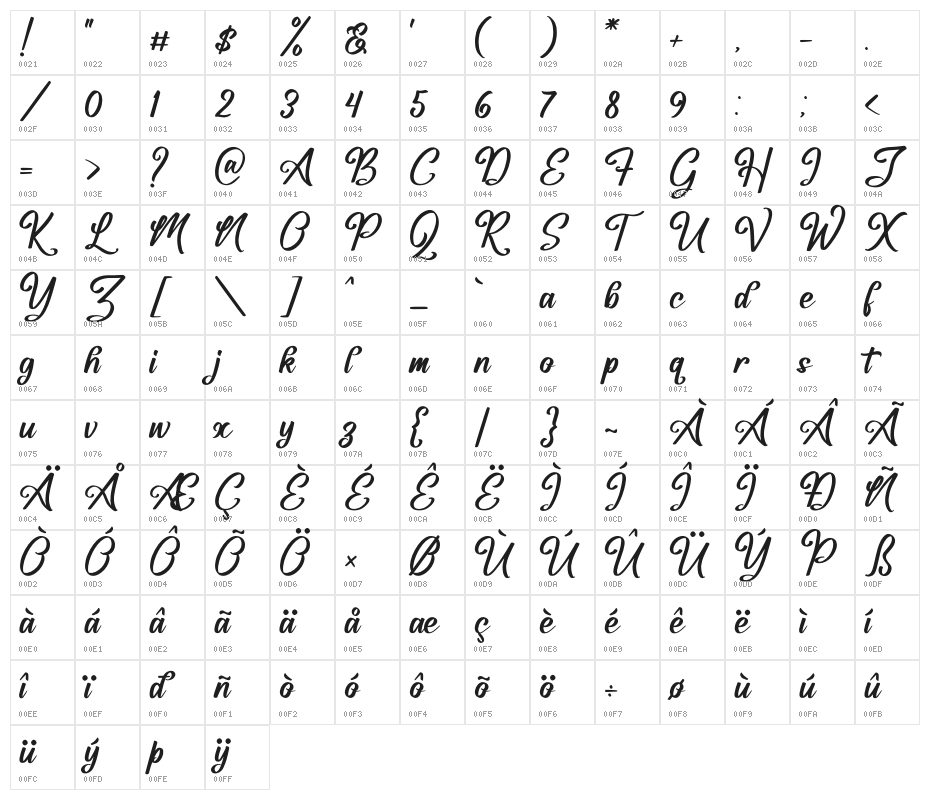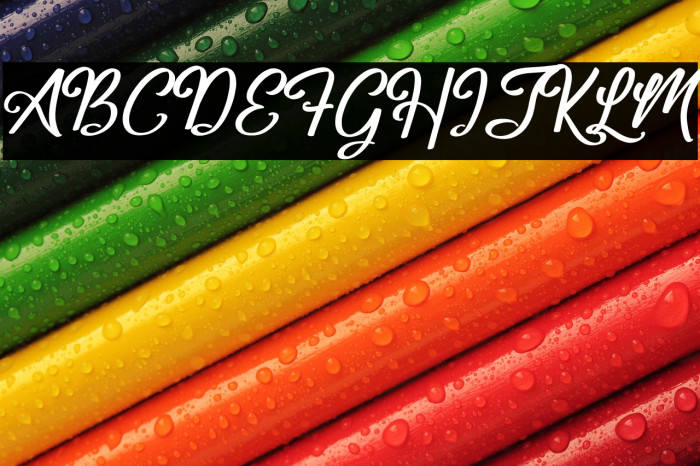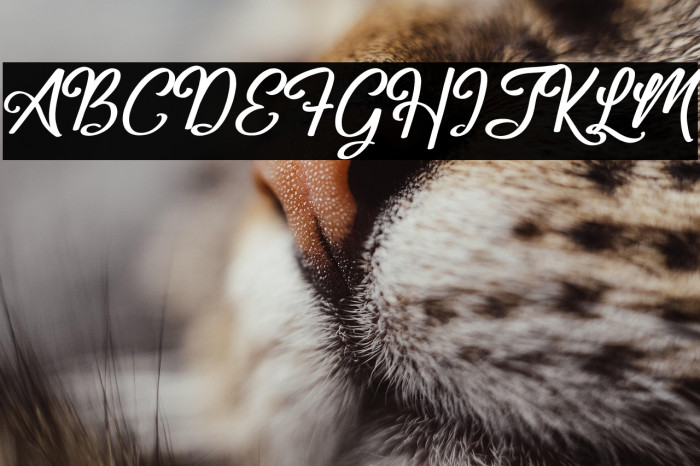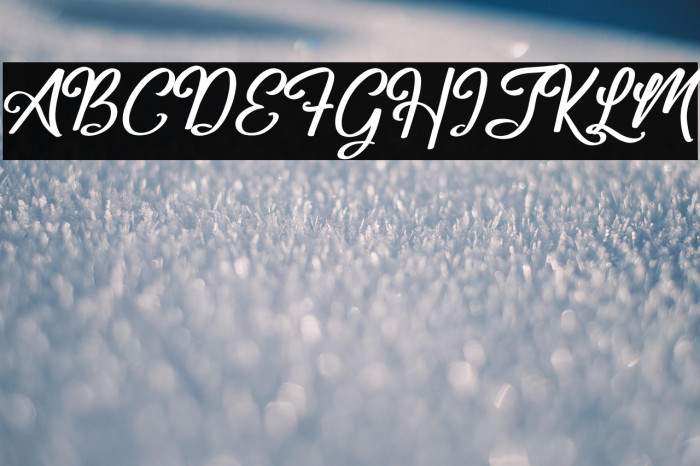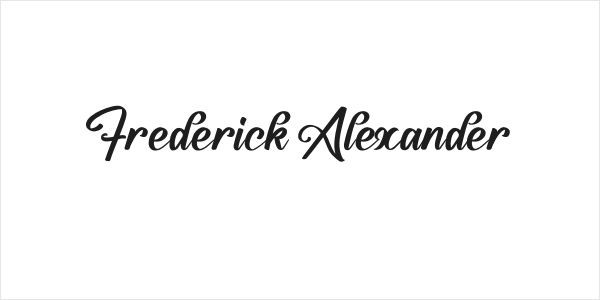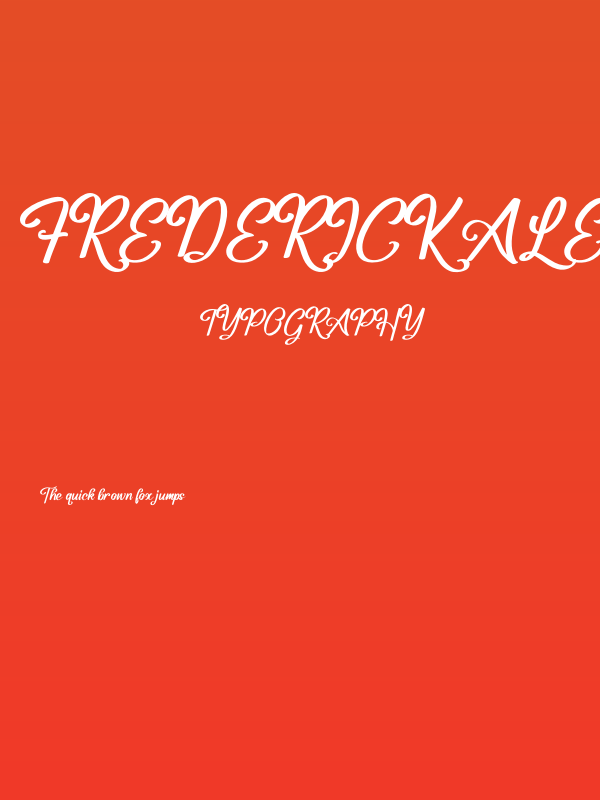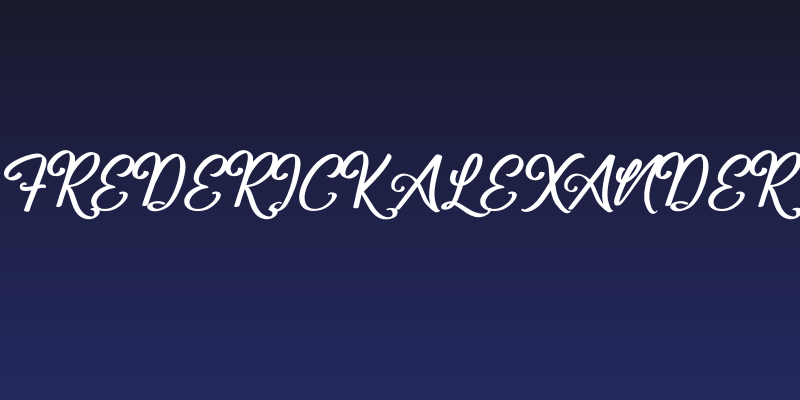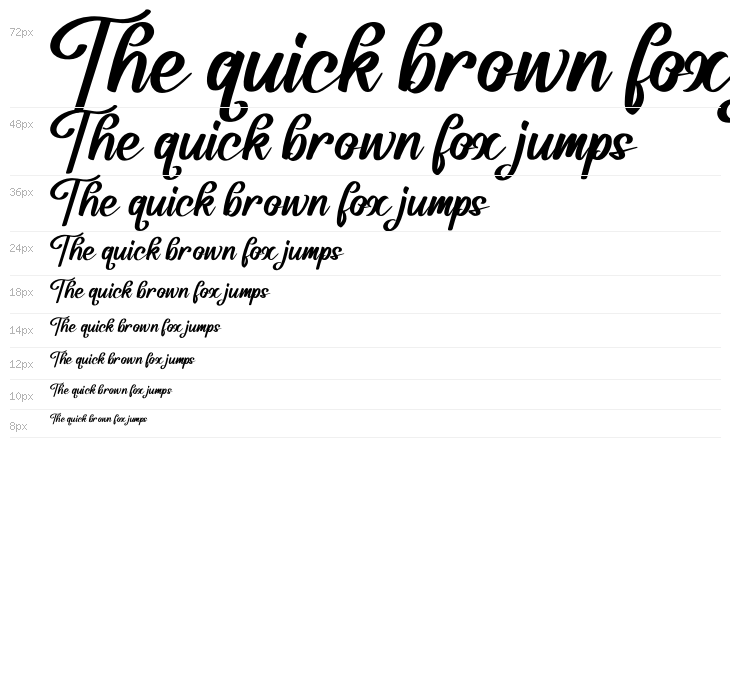
Frederick Alexander Font
Frederick Alexander Description
This font features a dynamic and flowing script style that exudes elegance and sophistication. The characters are interconnected with smooth, sweeping curves, giving it a handwritten appearance. The uppercase letters are bold and prominent, while the lowercase letters maintain a consistent flow, enhancing readability. The numerals and special characters are crafted with the same attention to detail, ensuring a cohesive look across all elements. This font's design is perfect for adding a touch of class and personality to any project.
FREDERICK-ALEXANDER UPPERCASE
FREDERICK-ALEXANDER LOWERCASE
FREDERICK-ALEXANDER OTHER CHARS